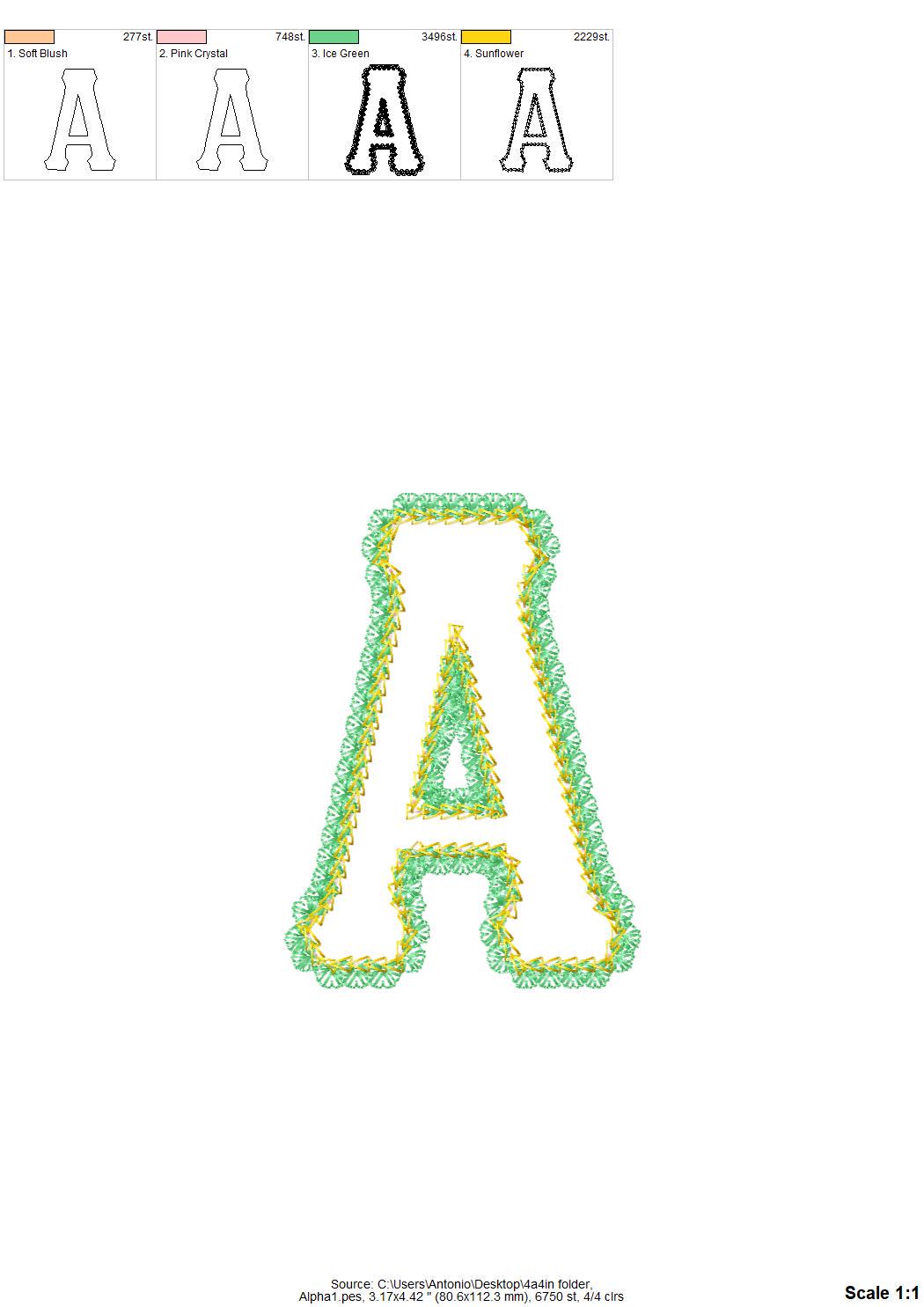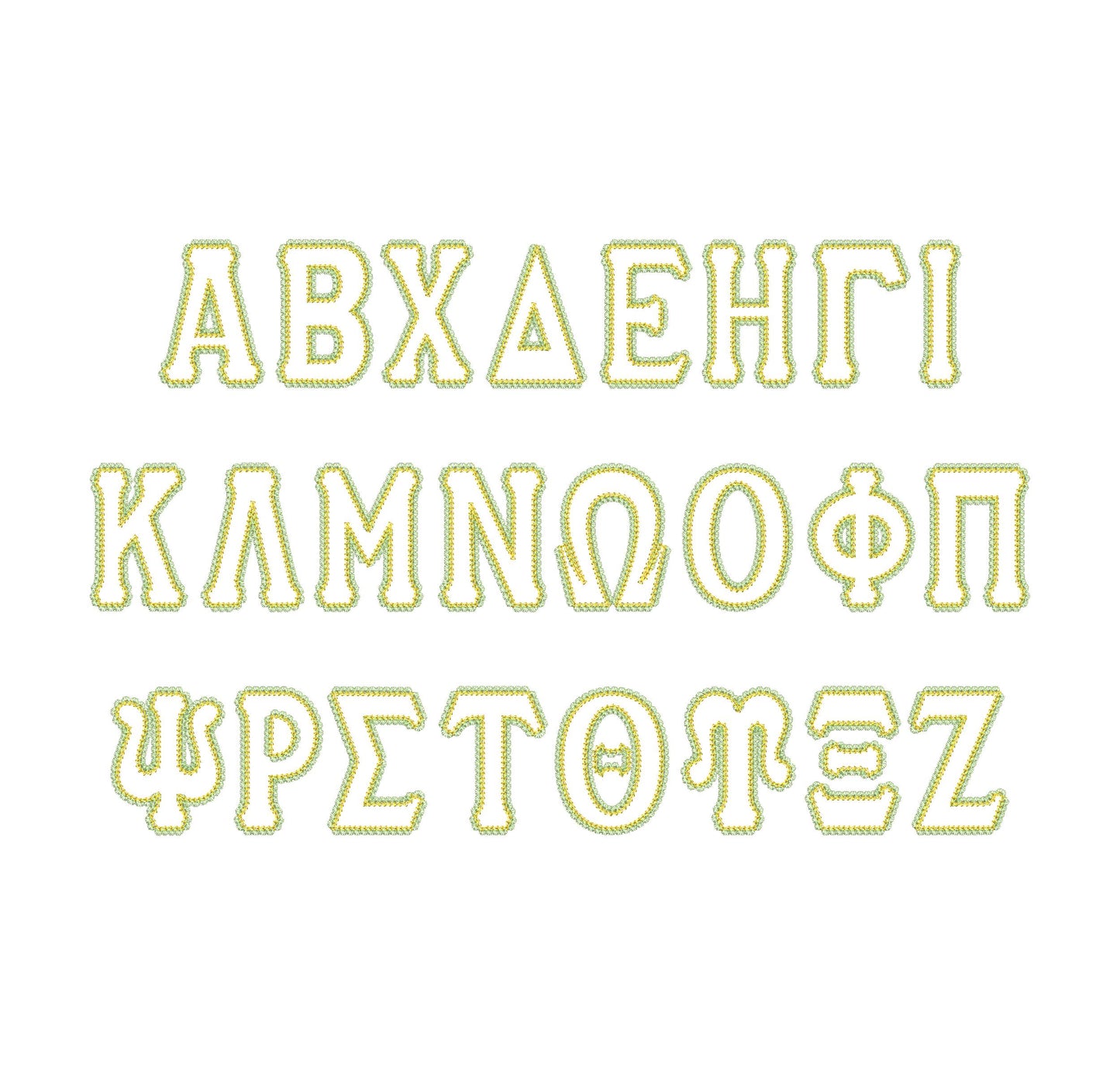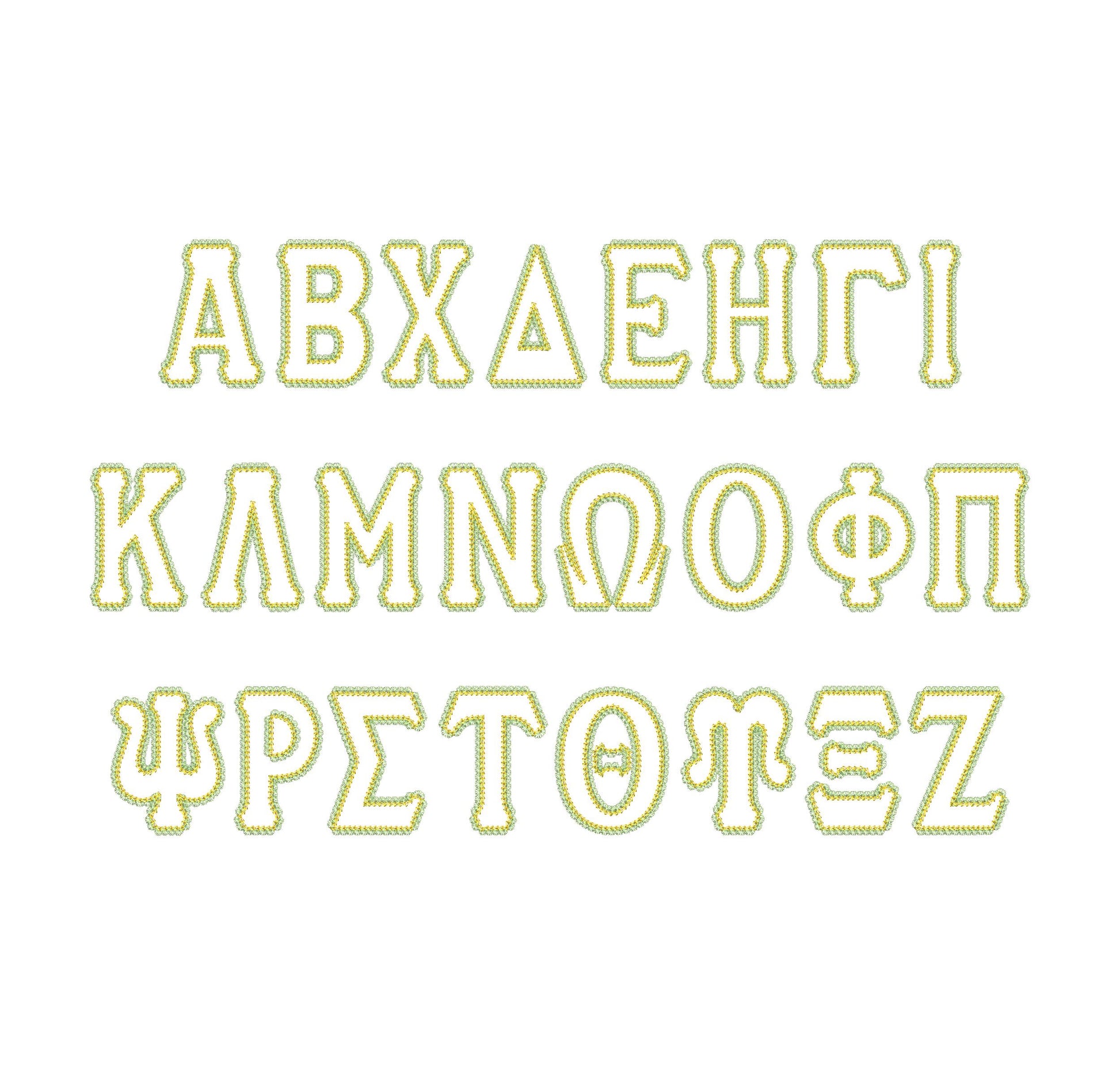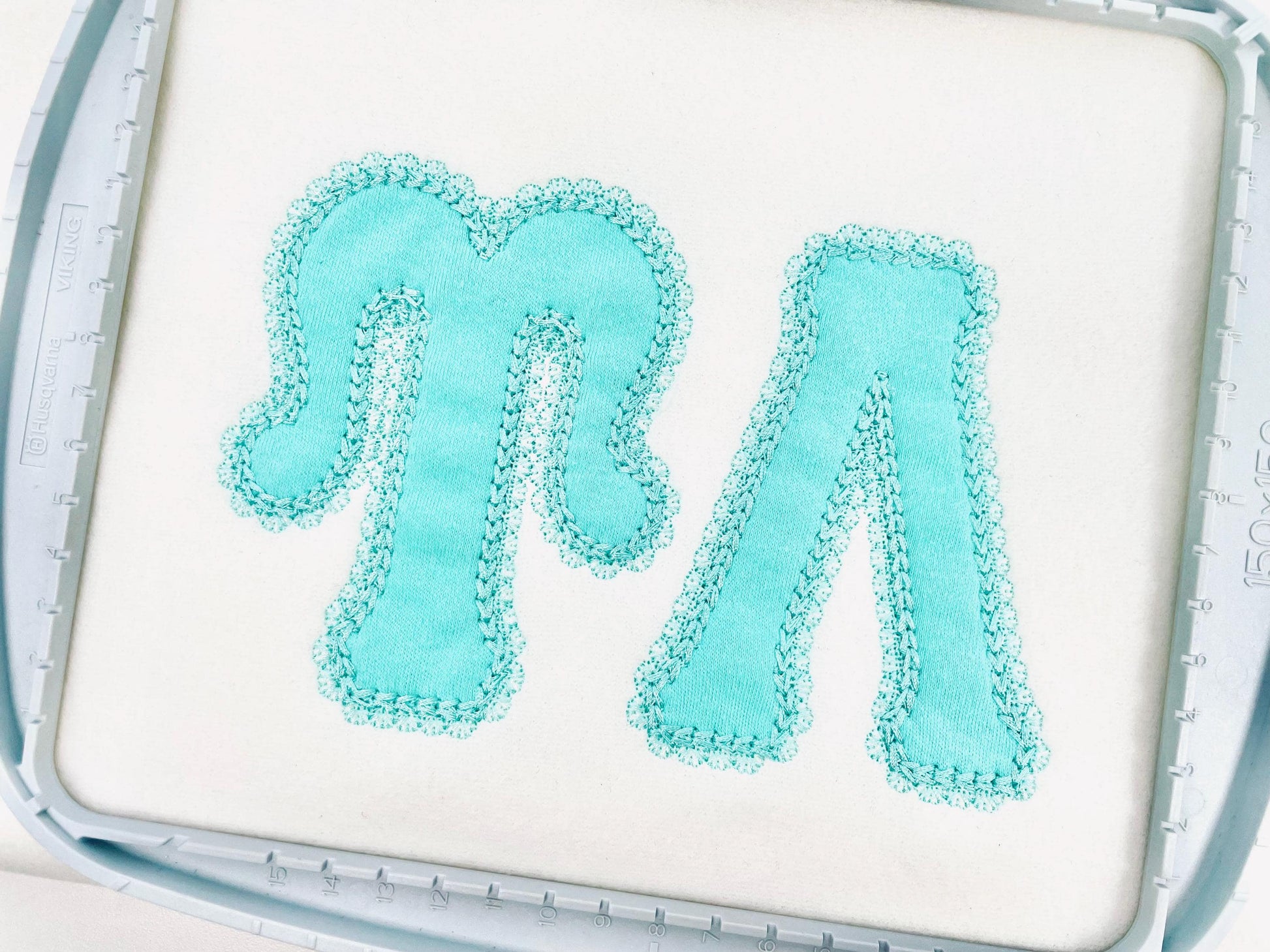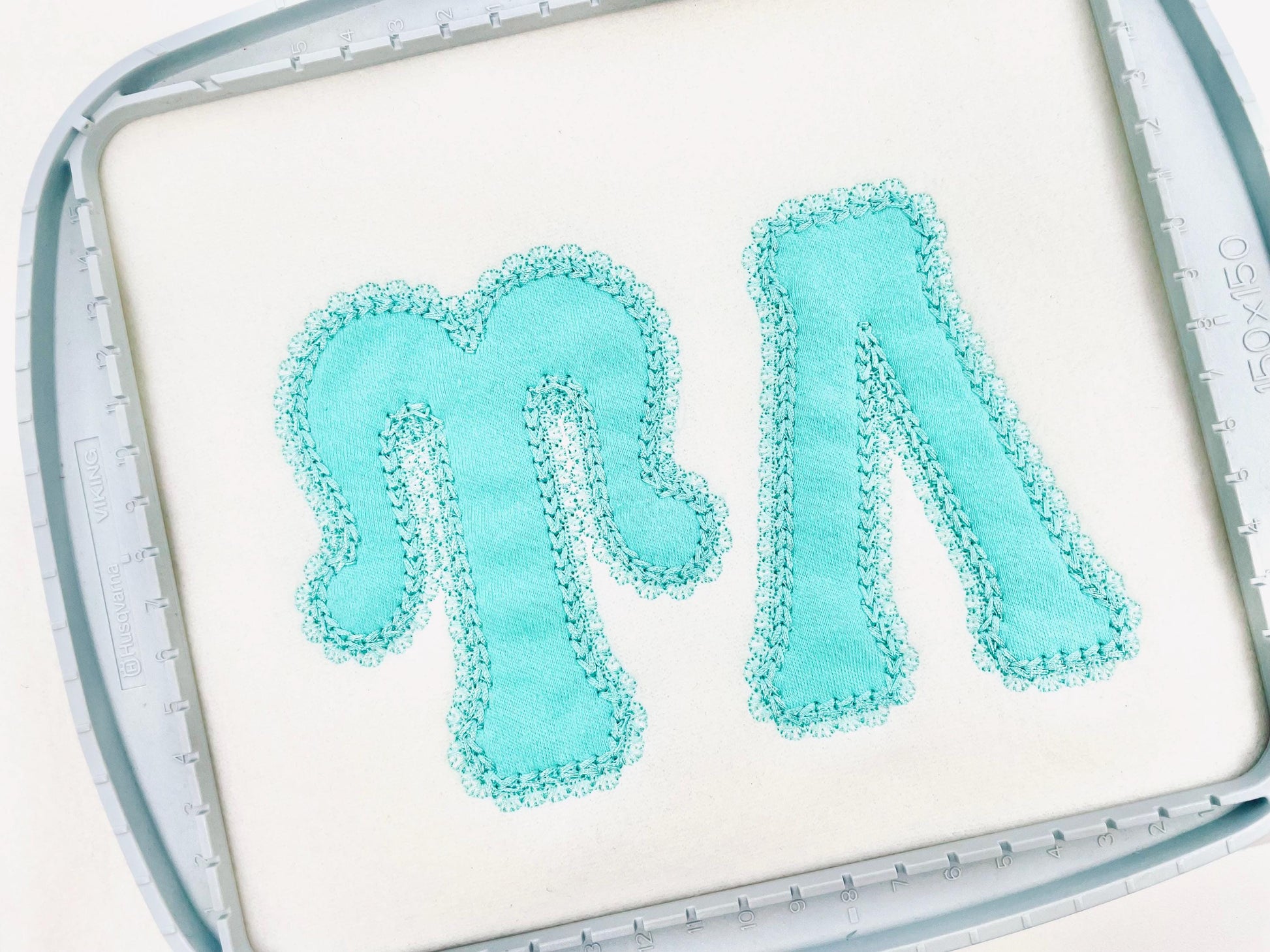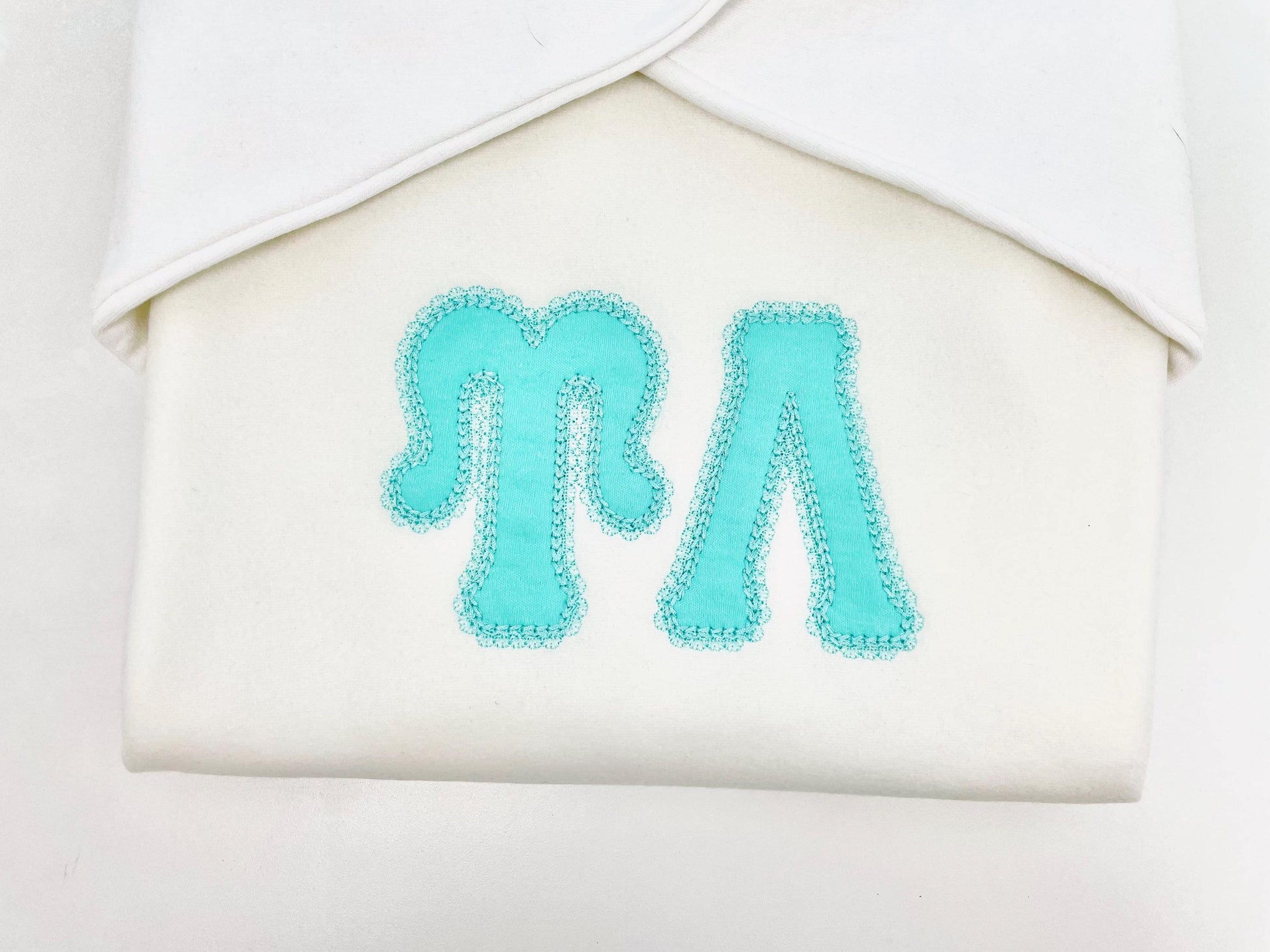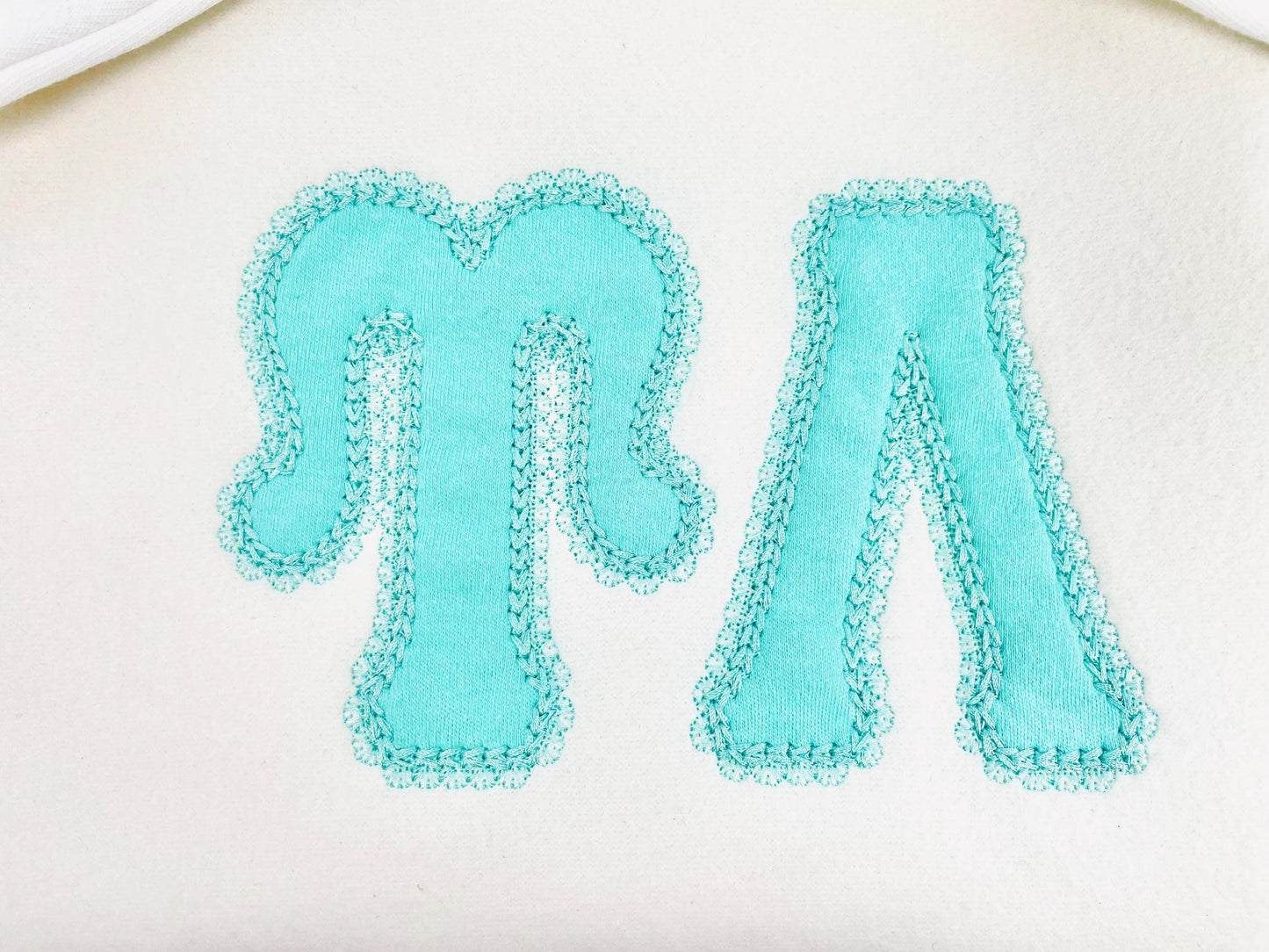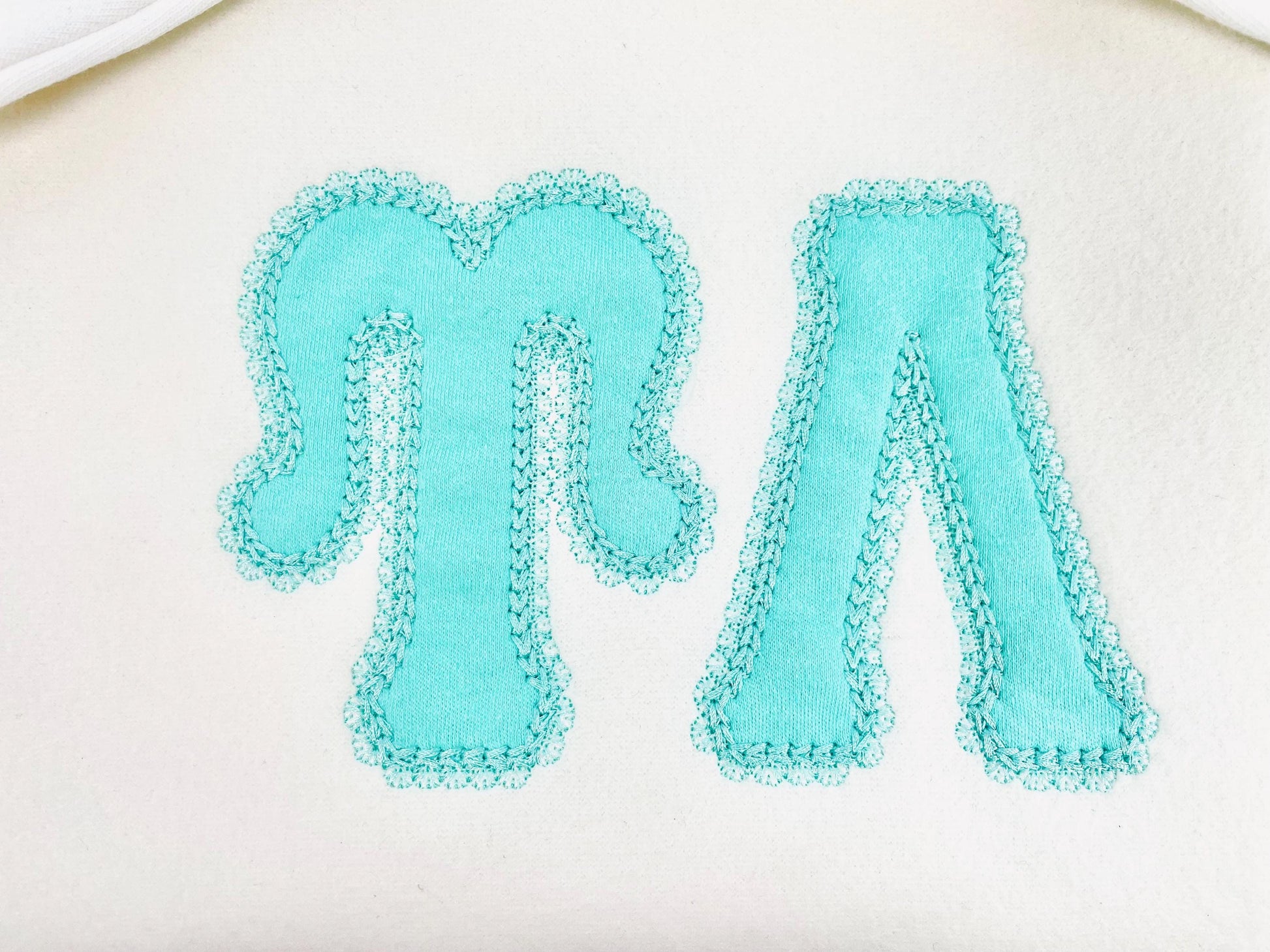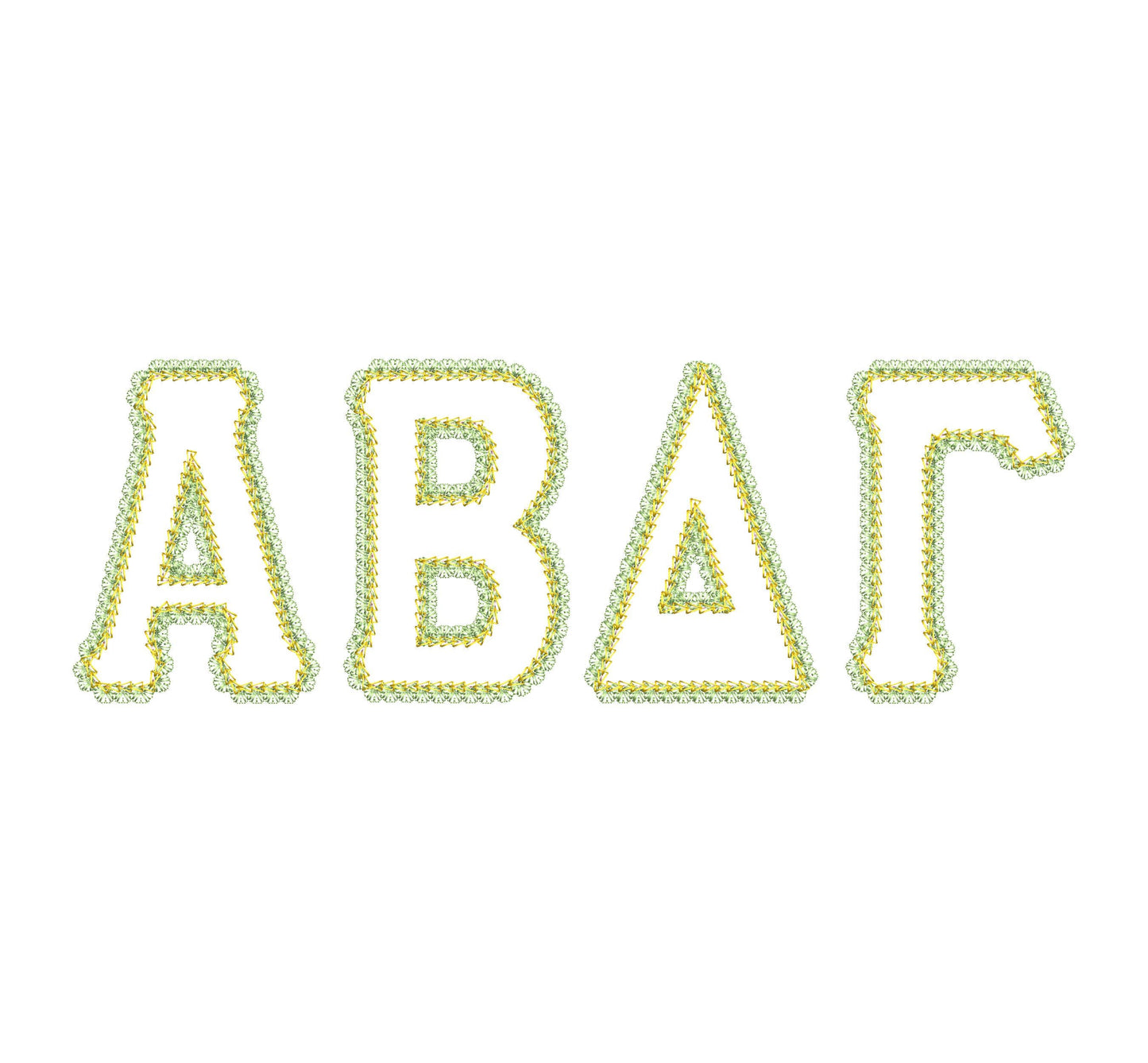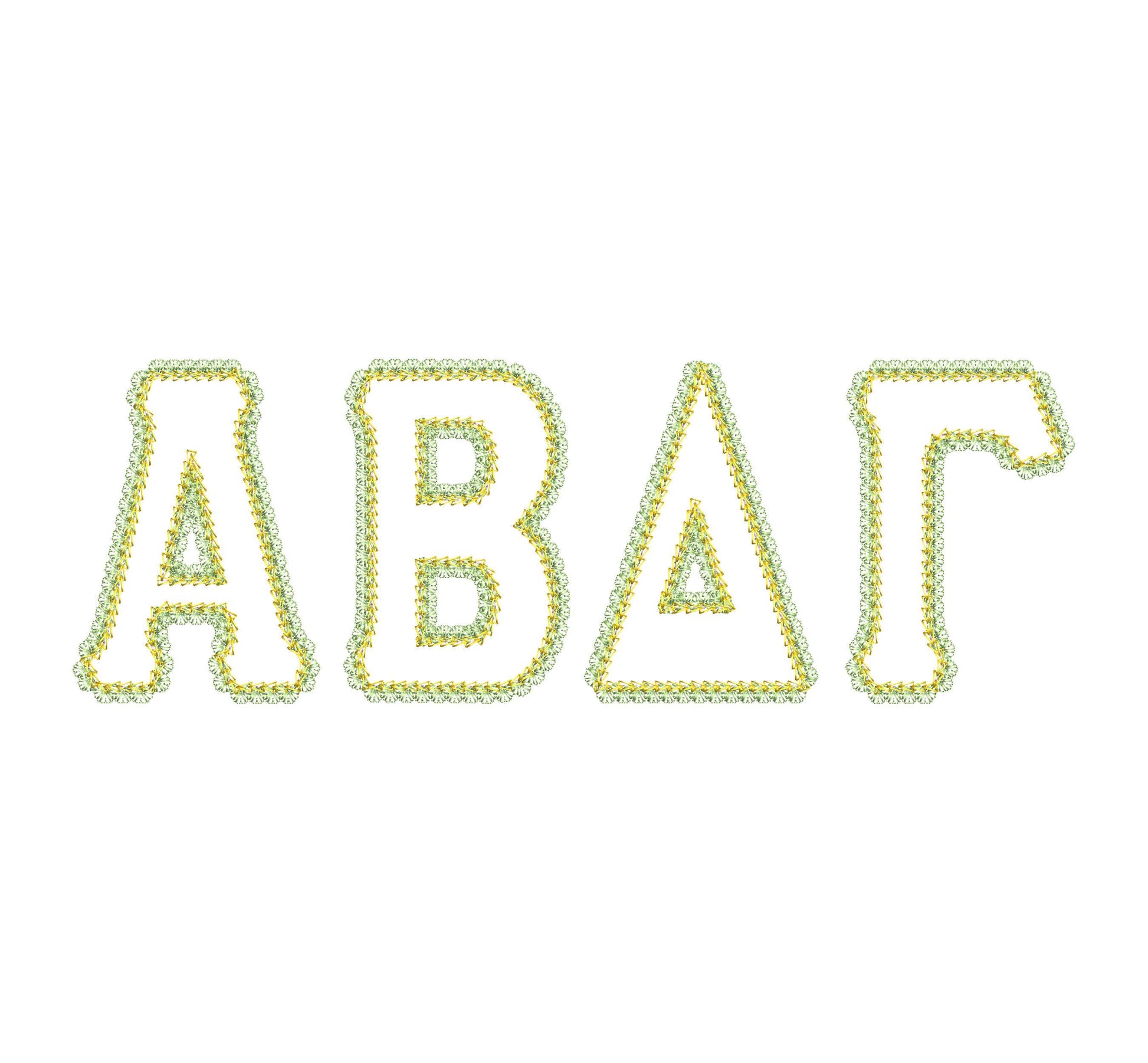
Or click to open the linkBig Greek letters as applique with a decorative lace edge and a chain stitch outline. Pretty for sorority and fraternity sweatshirts and bags.
All 24 Greek letters in seven sizes: 3.2, 3.8, 4.4, 5, 5.5, 6.1 and 6.5 inches.